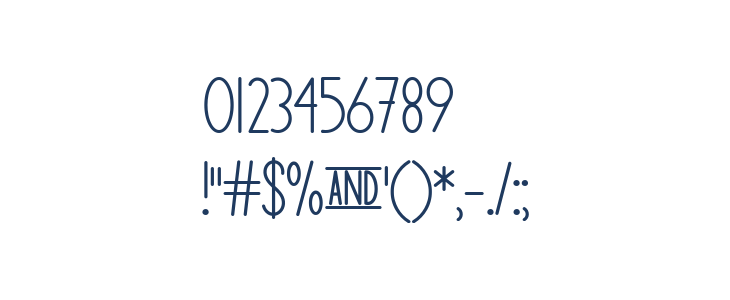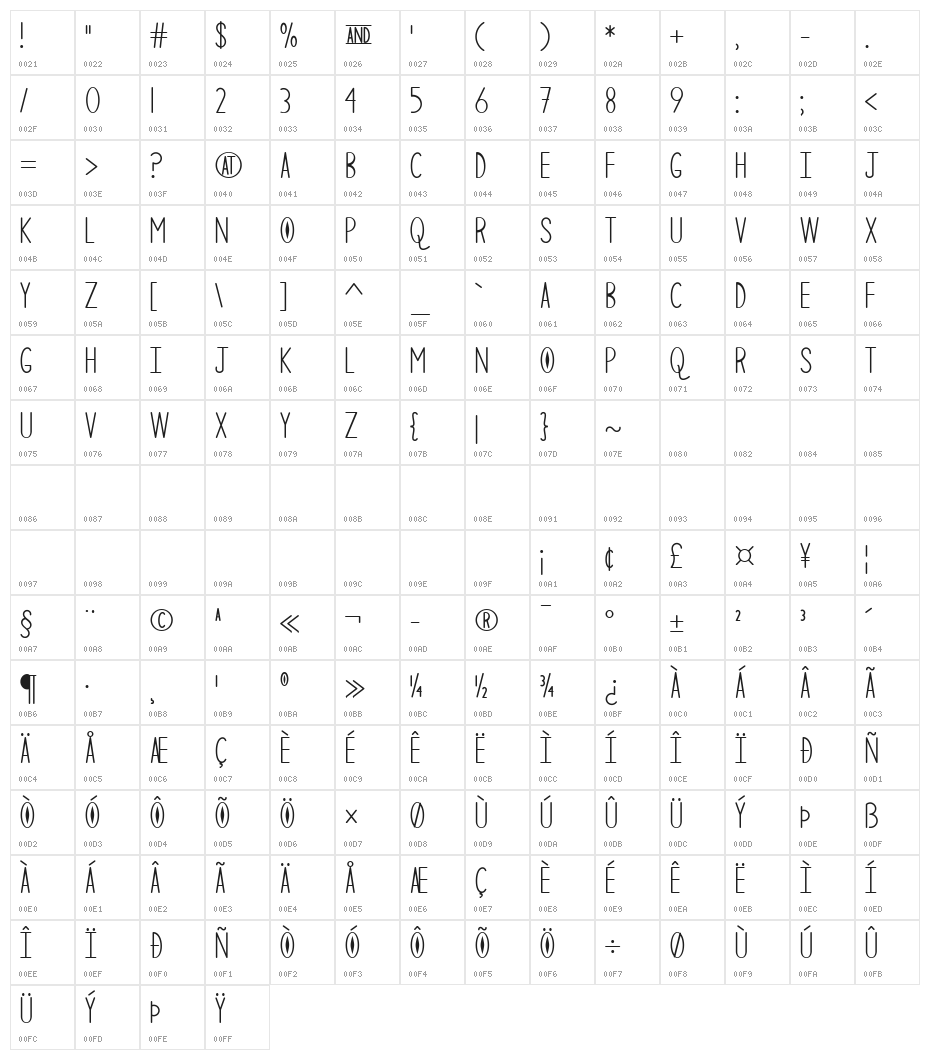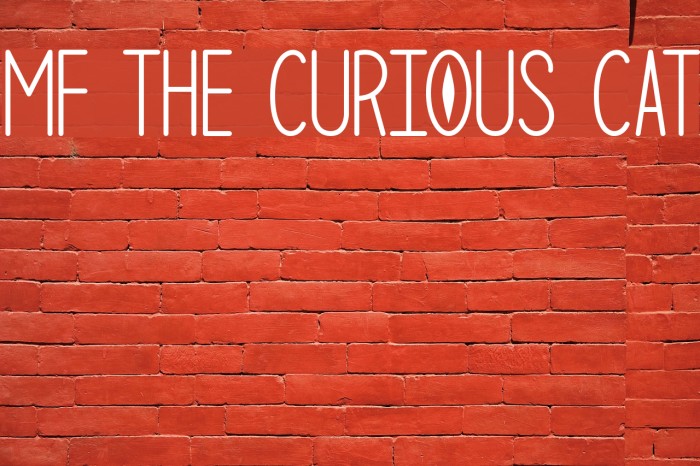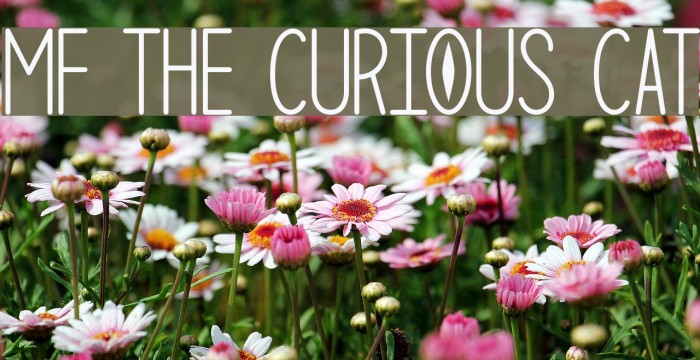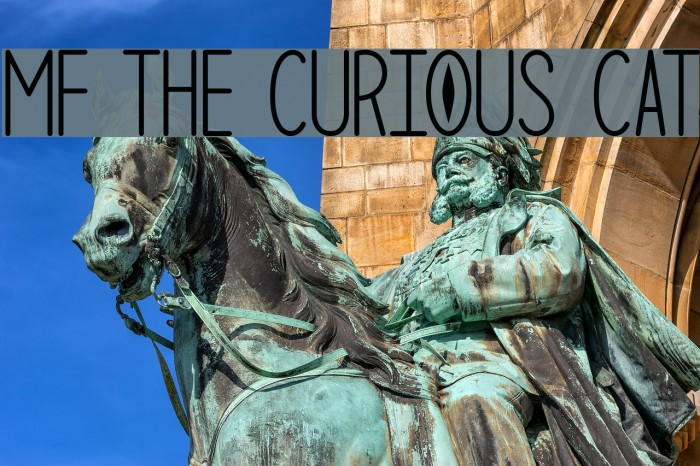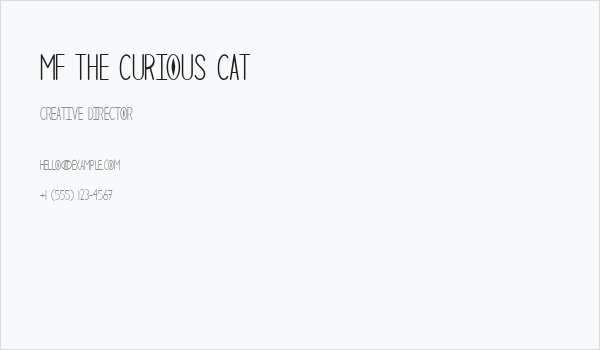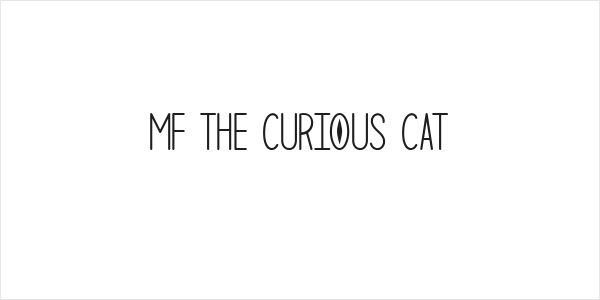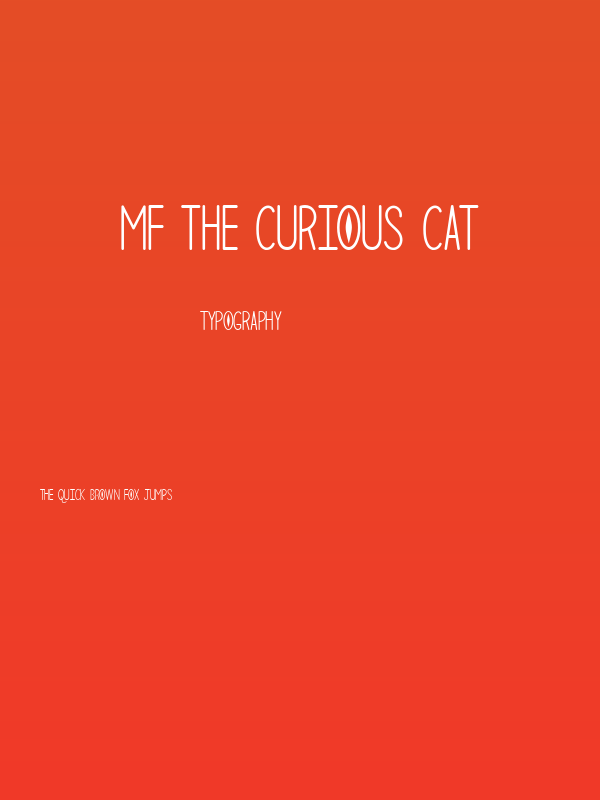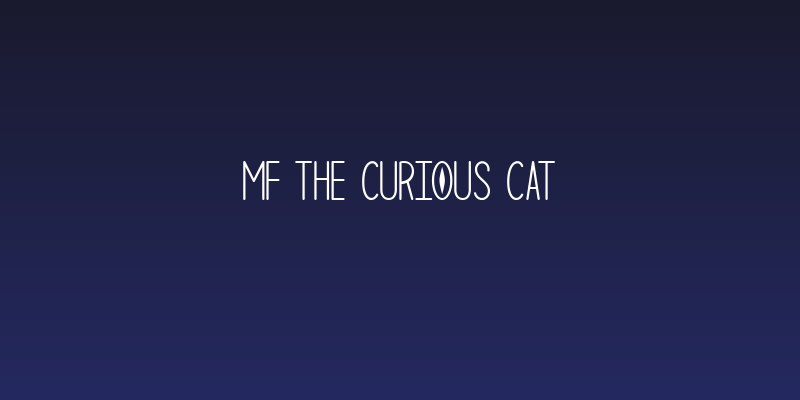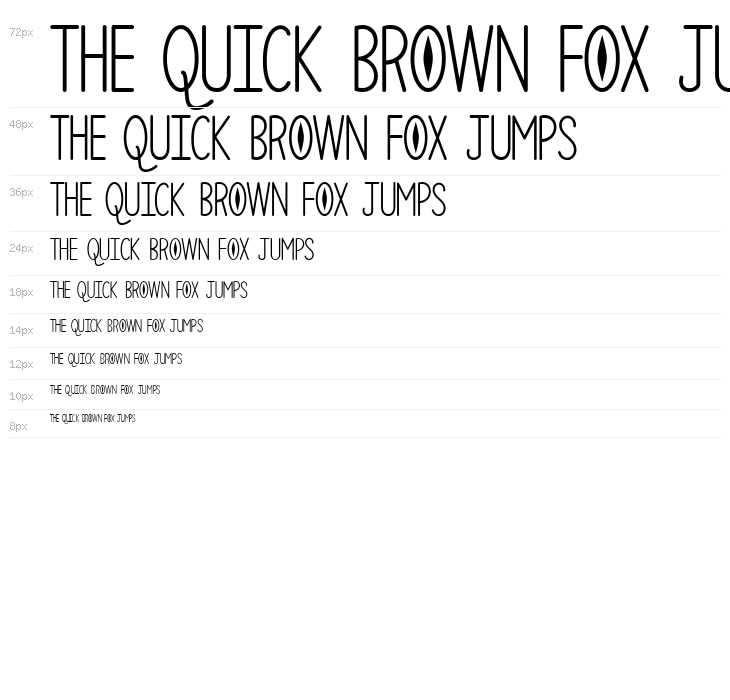
Mf The Curious Cat Font
Mf The Curious Cat Description
This font features a playful and whimsical design with elongated, narrow characters that give it a unique and quirky appearance. The uppercase letters are tall and slender, while the lowercase letters maintain a consistent style with slightly rounded edges. The numbers are similarly styled, providing a cohesive look across all characters. Special characters are included, adding versatility for various design needs. The overall aesthetic is modern and slightly eccentric, making it suitable for creative projects that require a touch of personality.
| Overall Style | Modern, Quirky |
| Proposed Projects | Ideal for children's books, playful branding, creative posters, and whimsical invitations. |